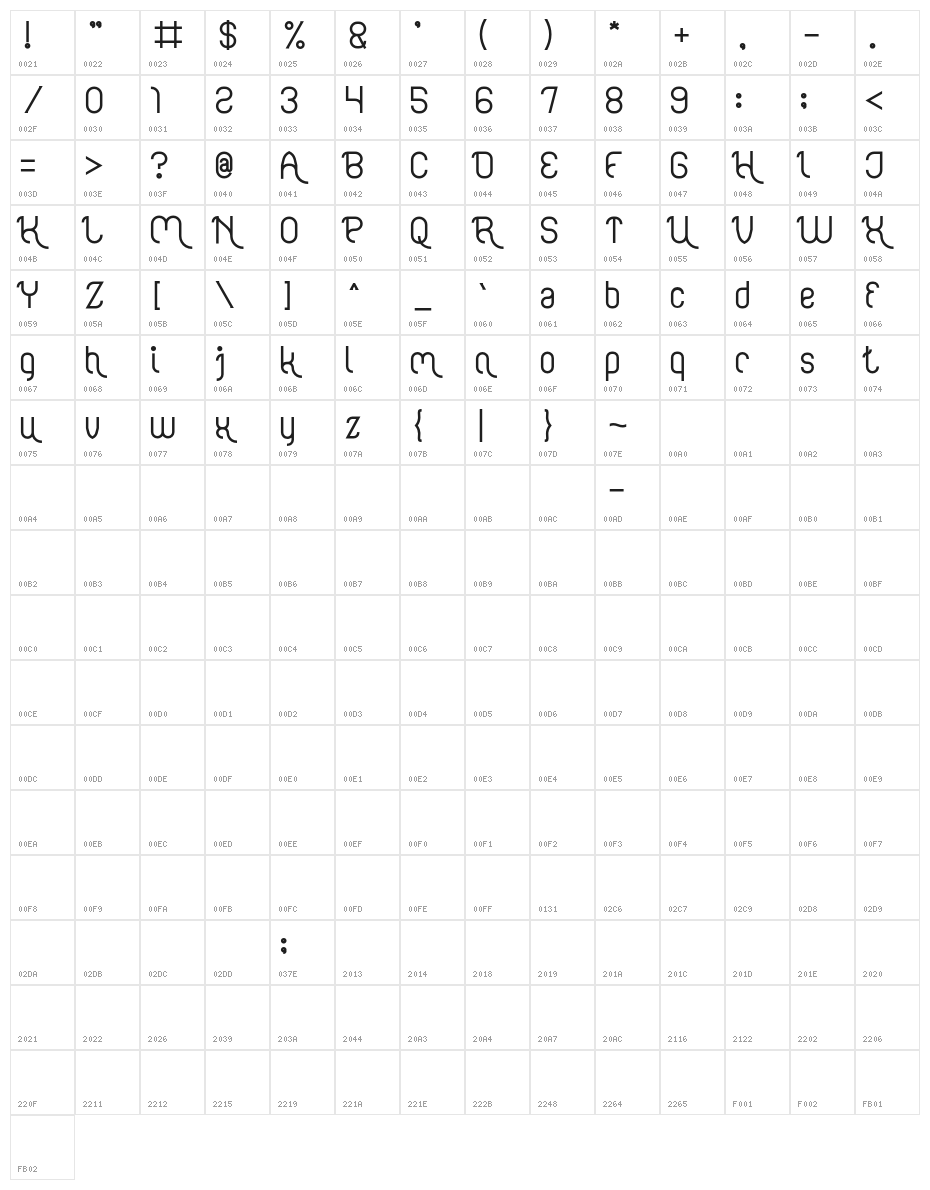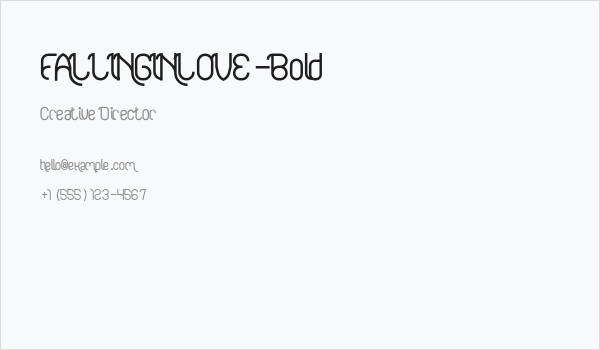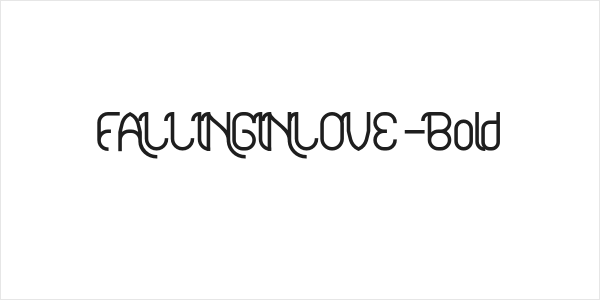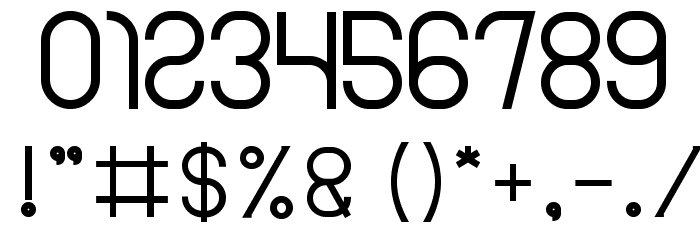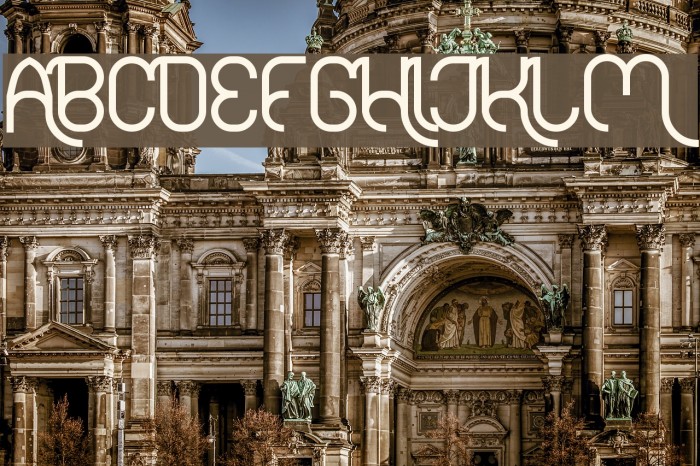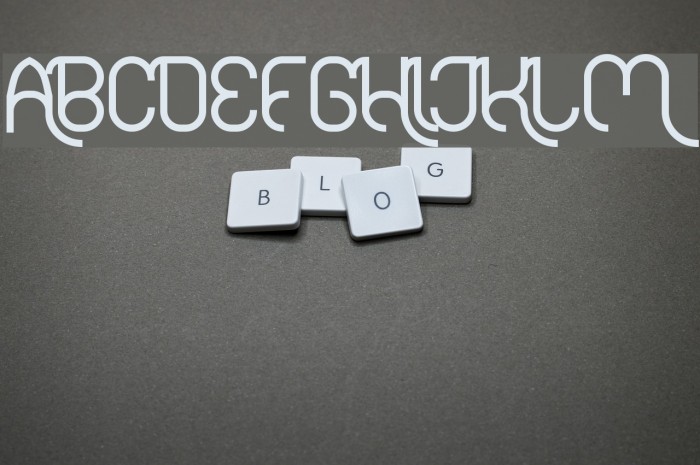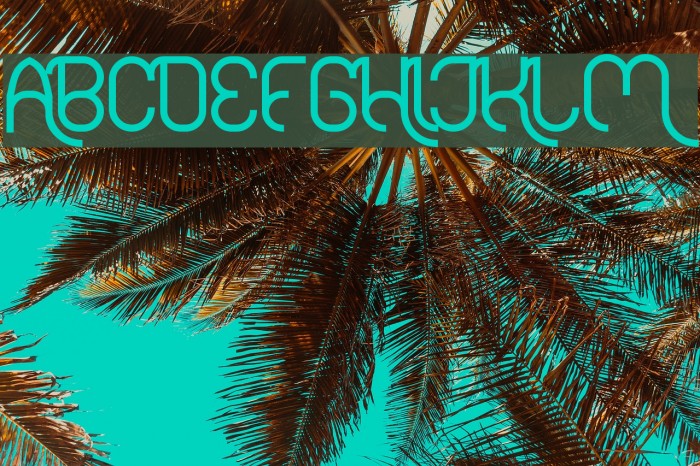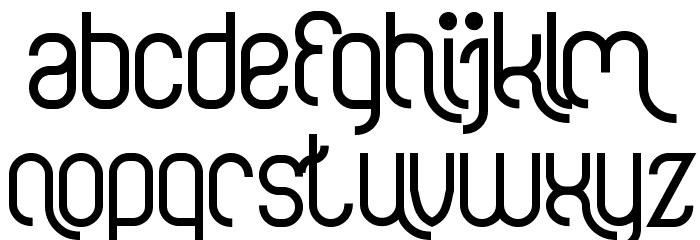
FALLINGINLOVE-Bold Font
FALLINGINLOVE-Bold Description
This font features a unique and artistic design with a modern twist. The characters exhibit a blend of geometric and flowing elements, creating a visually striking appearance. The uppercase letters are bold and structured, while the lowercase letters maintain a consistent style with slight variations in curvature. The numbers are clear and legible, matching the overall aesthetic. Special characters are creatively integrated, adding to the font's distinctiveness. This font's design is both decorative and functional, making it suitable for a variety of creative applications.